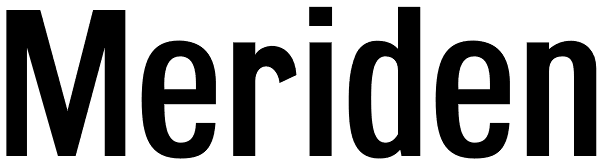
Meriden
This sans-serif face is slightly condensed, and intermediate between rounded and squared, giving a clean and modern aspect. The family contains four conventional weights (available individually) that cover just about everything from large bodies of...